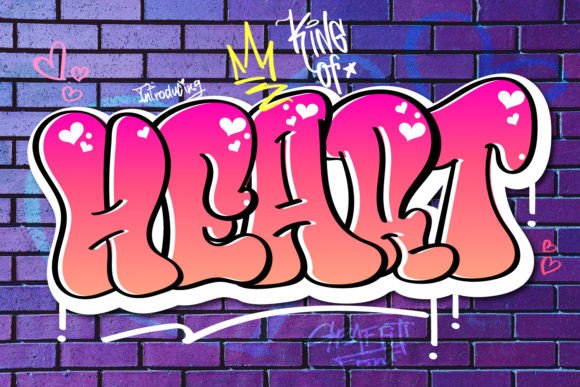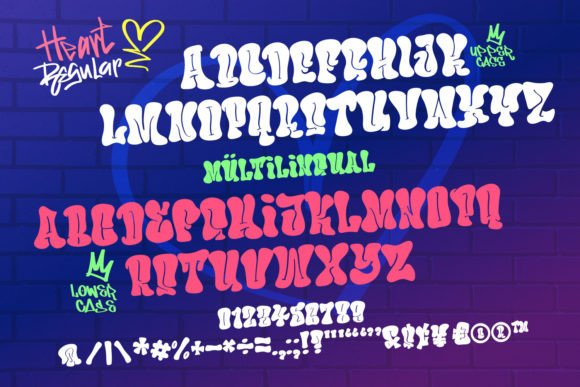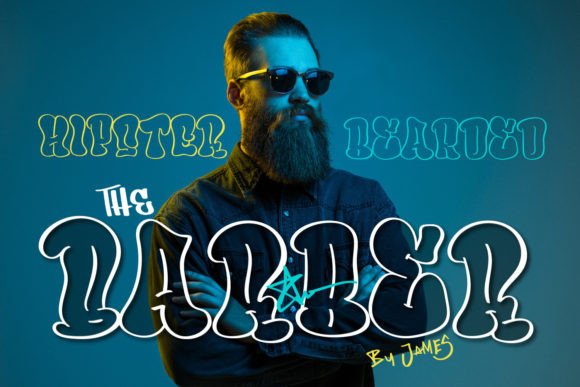
Heart is an awesome graffiti-styled display font that has an urban street art vibe. This font is suitable for designs such as t-shirts, sportswear, logos, advertisements, clothing, and more.
Heart Font